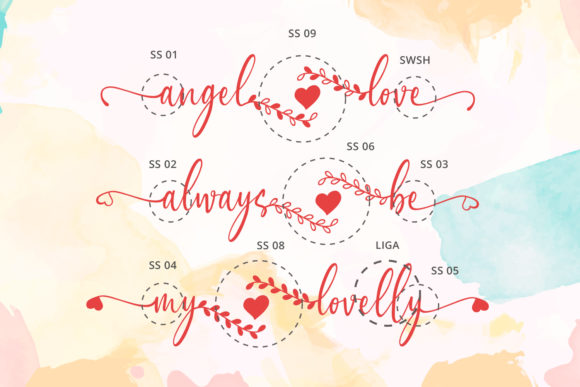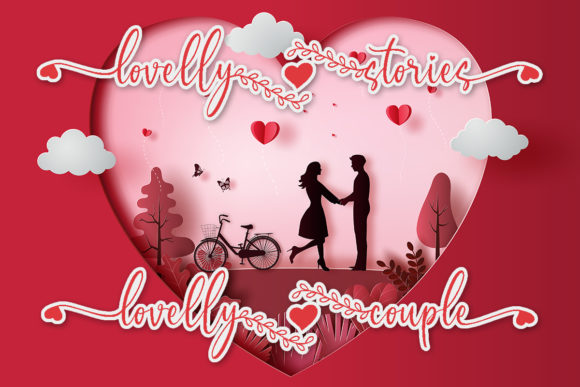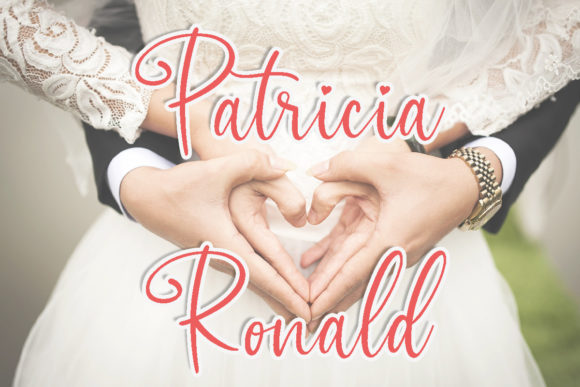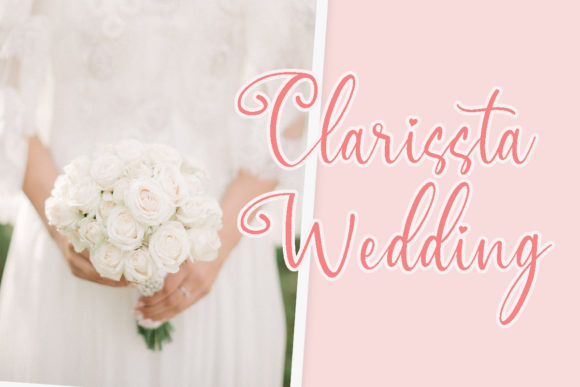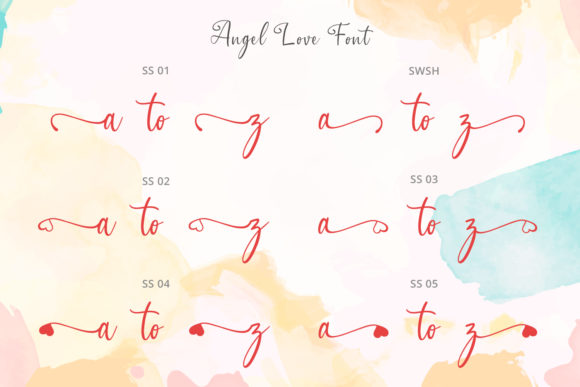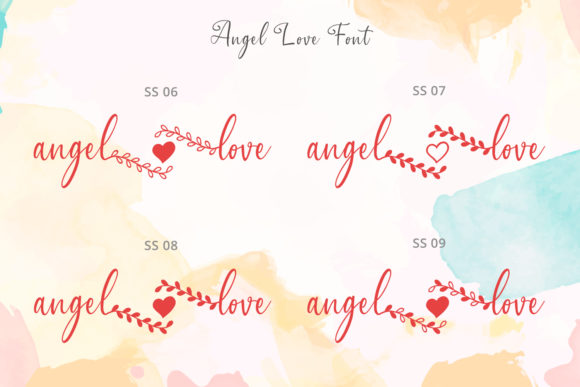
When Words Become Works of Art: The Magic of Angel Love Font
There’s something special about creating a piece of art that touches someone’s heart. Maybe it’s a handwritten note to a loved one, a beautifully designed wedding invitation, or a social media post that sparks joy. Whatever the medium, the key to making it truly unforgettable lies in the details – like the perfect font. For designers seeking to infuse their work with a touch of romance and whimsy, the Angel Love Font is a game-changer.
This gorgeous handwritten font is designed to make a lasting impression, with its beautiful swashes and ligatures adding a personal touch to any project. Whether you’re a professional designer or a creative enthusiast, the Angel Love Font offers a wealth of special features, including alternate glyphs and ligatures, to help you bring your vision to life.
Angel Love Font Key Features
- Font Family: Angel Love Font is a beautiful, elegant script font designed for love-themed projects, weddings, and other romantic occasions.
- Character Set: Includes a wide range of characters, including uppercase and lowercase letters, numbers, and special characters, making it suitable for various applications.
- Unique Characteristics: Angel Love Font features flowing, cursive lines and elegant flourishes, making it perfect for creating a romantic and whimsical atmosphere.
Designer Review: Angel Love Font
I’ve had the chance to work with Angel Love Font, and I must say it’s a lovely addition to any design project. ✨ The font’s delicate, handwritten feel makes it perfect for projects that need a touch of whimsy and romance.
- Unique, hand-drawn feel that adds character to designs
- Perfect for wedding invitations, greeting cards, and other romantic projects
- Works well in both uppercase and lowercase forms
- May not be the best choice for body text due to its ornate design
- Limited character set, which can make it difficult to use for longer texts
- Not ideal for digital displays or high-resolution printing
- Requires careful kerning and alignment to maintain its delicate feel
Overall, I think Angel Love Font is a great choice for designers looking to add a touch of elegance and romance to their projects. While it has its limitations, its unique feel and versatility make it a great addition to any design library.
To get the most out of the Angel Love Font, try the following:
- Use the font in combination with other elegant fonts to create a cohesive look.
- Use the font to add a touch of romance and whimsy to your designs.
The Angel Love Font is perfect for:
Alternatives to Angel Love Font
Great Vibes Font is a beautiful, elegant script font perfect for wedding invitations, quotes, and any other romantic or inspirational content. It’s ideal for designers who want a more refined and sophisticated look compared to Angel Love Font’s playful feel.
Comparison: Great Vibes Font has a more classic and sophisticated look compared to Angel Love Font’s whimsical feel.
Lovelo Font
Lovelo Font is a modern, stylish font designed for romantic and loving messages. It’s suitable for designers who want a more contemporary look and feel compared to Angel Love Font’s traditional style.
Comparison: Lovelo Font has a more modern and edgy look compared to Angel Love Font’s traditional feel.
Love Story Font
Love Story Font is a beautiful, handwritten font perfect for romantic quotes, love stories, and any other content that requires a personal touch. It’s ideal for designers who want a more emotional and heartfelt look compared to Angel Love Font’s playful feel.